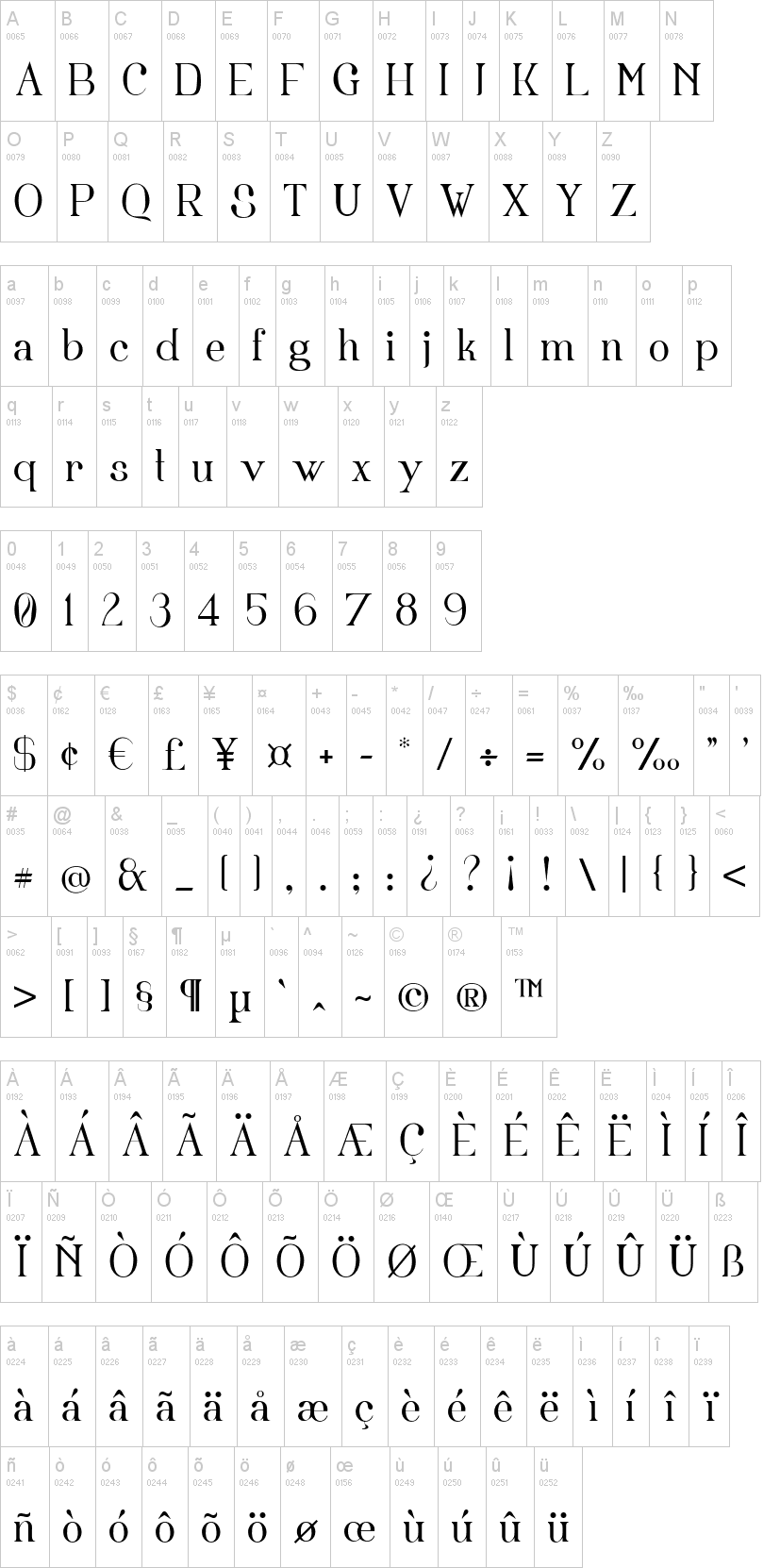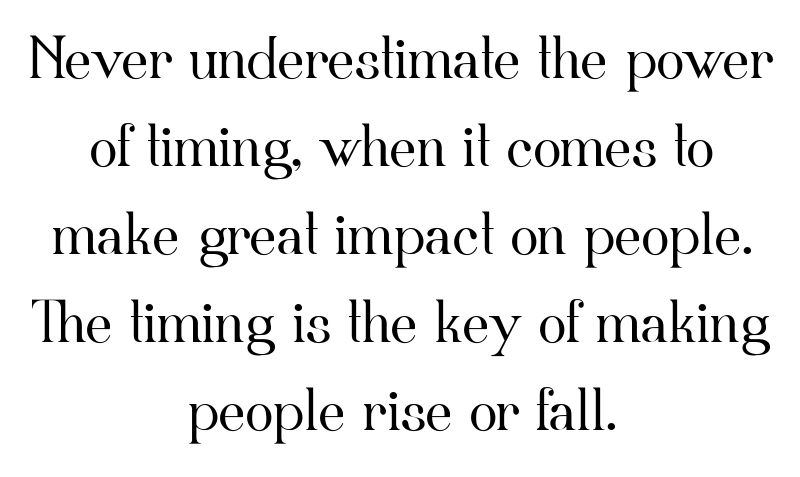
Note of the authorThis font can be regarded as the brother of Fortunata (http://www.dafont.com/fortunata.font), it basically has the only difference of having the counters properly closed thus being maybe more widely usable.
So apart from that it features the same characteristics as Fortunata, like high stroke contrast and asymmetric serifs.